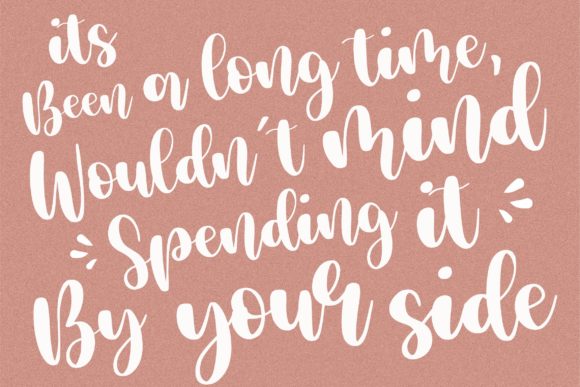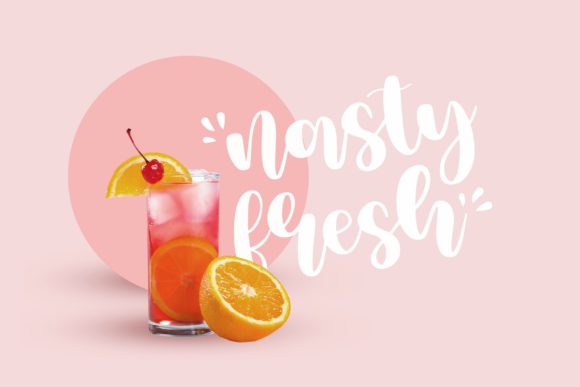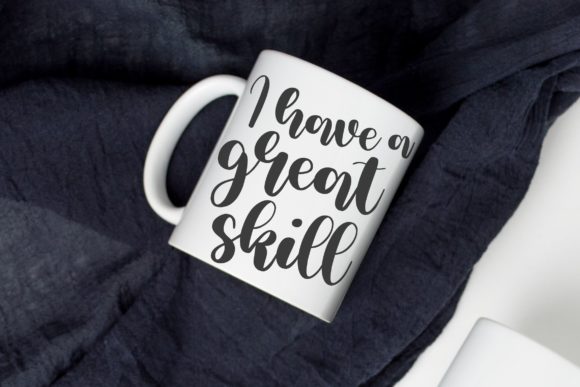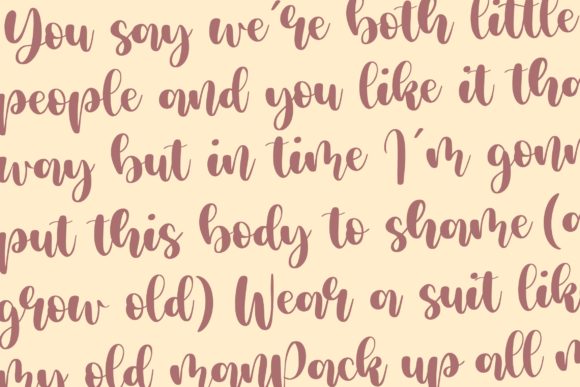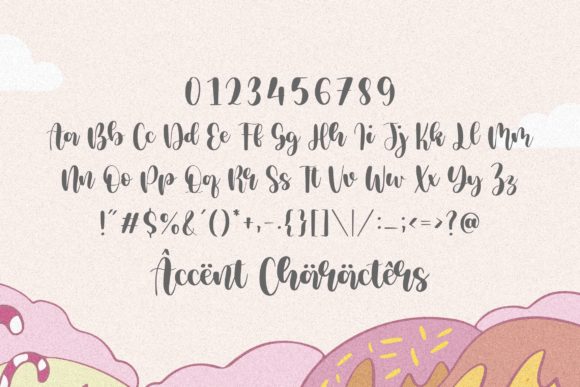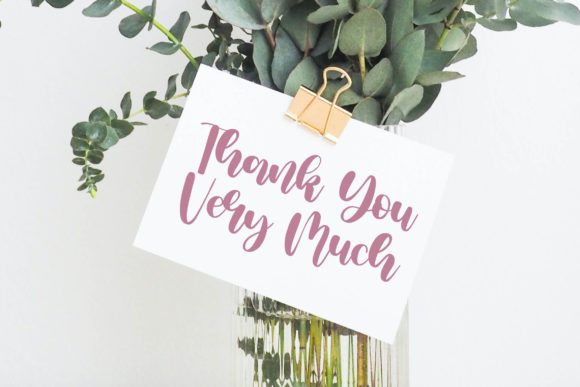
Introduction to Milcandy Font
As you sit in front of your computer, staring at a blank canvas, the creative wheels start turning. You’re on the hunt for the perfect font to bring your latest project to life. And then, it happens – you stumble upon Milcandy Font, and your heart skips a beat. This elegant, flowing handwritten font has an undeniable charm that’s sure to captivate your audience.
With its unique, timeless style, Milcandy Font is the ultimate design resource for creatives. Whether you’re working on a high-end marketing campaign or a personal project, this versatile font is sure to elevate your work. And the best part? You can download Milcandy Font for free, making it an accessible and valuable addition to your design arsenal.
Key Features of Milcandy Font
- High-quality, unique design: Milcandy Font offers a distinctive and creative style perfect for various design projects.
- Perfect for design projects: Milcandy Font is ideal for use in branding, typography, and creative projects where a unique and high-quality font is required.
Honest Review: Milcandy Font
As a designer, I’m always on the lookout for high-quality fonts to enhance my creative projects. Recently, I stumbled upon the Milcandy Font, and I’m excited to share my thoughts on this design resource.
What works well: ✨ The Milcandy Font is a beautiful, elegant script font that’s perfect for adding a touch of sophistication to your designs. It’s available for free download, making it a great option for designers on a budget. The font also features a transparent background, which allows for seamless integration with other design elements.
- High-quality design: The Milcandy Font is a well-crafted font that’s sure to impress.
Limitations: ⚠️ While the Milcandy Font is a great option for many designers, it may not be suitable for all projects. The font is a script font, which means it may not be the best choice for projects that require a bold, sans-serif font.
Overall impression: I’m really impressed with the Milcandy Font. It’s a high-quality design resource that’s perfect for designers looking to add a touch of elegance to their projects. While it may have some limitations, I think it’s definitely worth checking out.
For the best results, use the Milcandy Font with a transparent background to create a stunning visual effect. You can also experiment with different font sizes and colors to add depth and interest to your design. Additionally, consider combining the Milcandy Font with other design elements such as graphics and images to create a unique and eye-catching design.
The Milcandy Font is ideal for use in a variety of creative projects, including invitations, brochures, business cards, and social media graphics. Its elegant and sophisticated design makes it perfect for use in high-end branding and marketing materials.